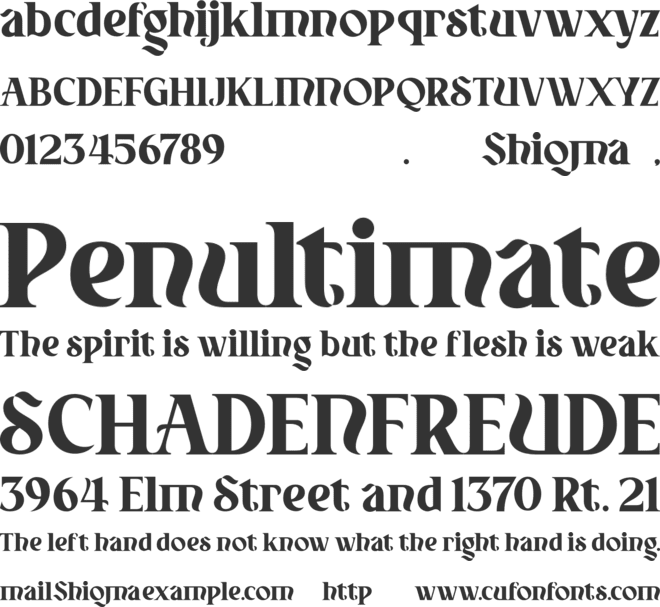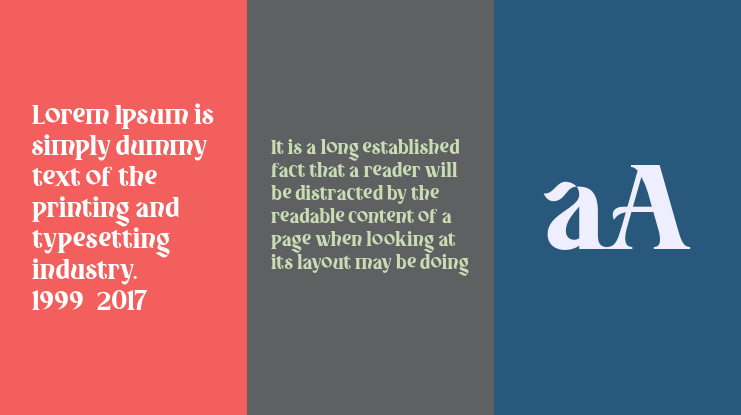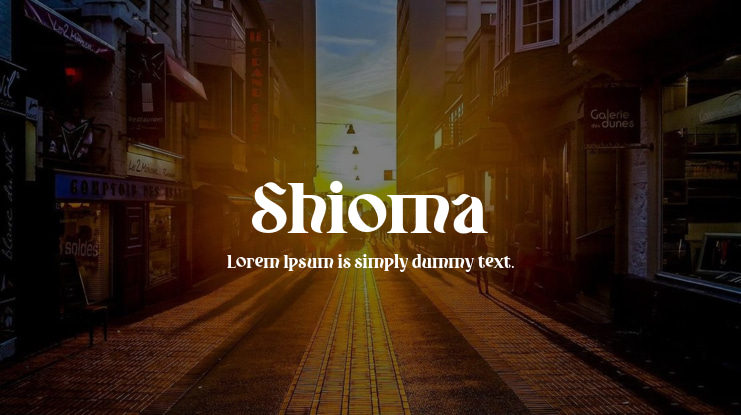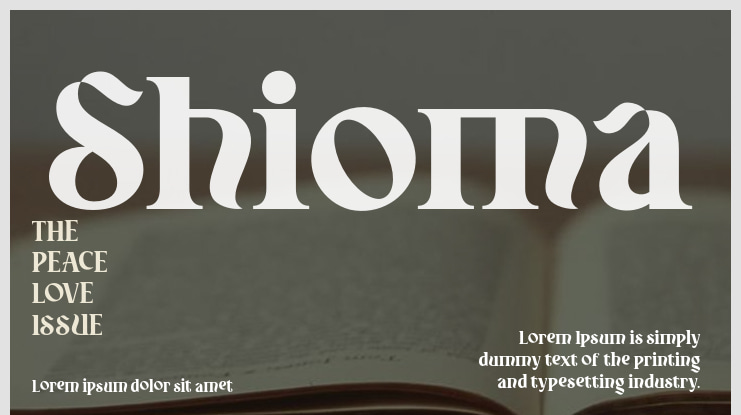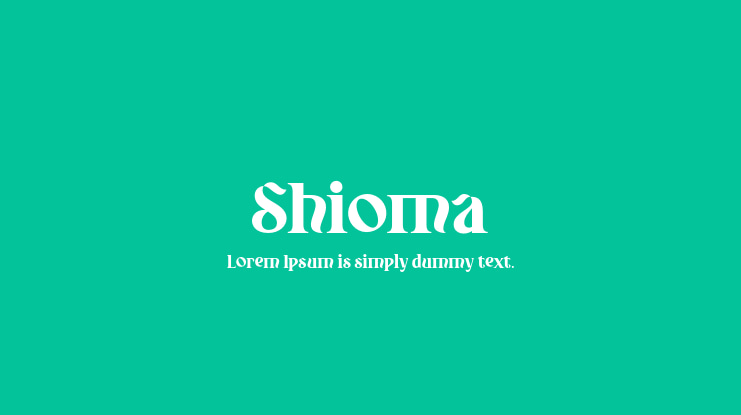
Presenting Shioma - a Unique and Bold Display Font!
Shioma by Aluyeah Studio is a striking typeface that will elevate your design projects with its twisted and strong display font. Inspired by ink strokes that create a twisted shape, Shioma offers over 270 glyphs and 90 alternates and ligatures to enhance your creativity. With quick access features and three available weights, Shioma provides versatility and flexibility for all your design needs.
For easy access to alternates, simply use quick access combinations like S.2 or m.2. To achieve results similar to the preview, select the font and type S.2hiom.2a in your design software.